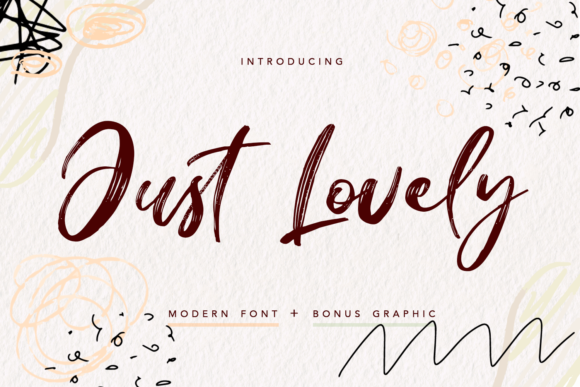
Journey into the world of elegance and sophistication with Just Lovely, a captivating script font that embodies charm and grace. Its carefully crafted brushstrokes dance across the page, leaving a trail of timeless beauty. Designed with passion by enyaaa90, Just Lovely is a masterpiece that elevates your designs, adding a touch of magic to every word.
Unleash your creativity with Just Lovely's versatility. Its fluid lines and effortlessly stylish curves make it a perfect choice for logos, wedding invitations, headings, t-shirts, letterhead, signage, labels, news, posters, badges, and so much more. Picture your brand's logo adorned with Just Lovely, exuding an aura of sophistication that attracts and captivates. Envision your wedding invitations scripted in this enchanting font, setting the tone for a celebration filled with love and elegance.
Step into the spotlight with Just Lovely's ability to transform ordinary text into breathtaking headers. Its eye-catching presence commands attention, ensuring your message stands out in a sea of mediocrity. Create t-shirts that speak volumes, emblazoned with quotes or designs brought to life by Just Lovely's enchanting strokes. Experience the joy of crafting letterheads that exude professionalism, making a lasting impression with every correspondence.
Indulge in the beauty of signage and labels adorned with Just Lovely. Its graceful letters lend an air of distinction, drawing eyes and captivating hearts. Craft news articles that captivate readers, with headings that dance off the page in Just Lovely's captivating style. Unleash your inner artist and create posters that ignite imaginations, using Just Lovely to convey messages that inspire and uplift. Design badges that proudly display your brand's identity, making a bold statement with Just Lovely's timeless appeal.
Just Lovely is more than just a font; it's an invitation to embark on a creative journey where elegance meets versatility. Its ability to transform the mundane into the magnificent makes it an essential tool for designers, bloggers, and anyone seeking to elevate their visual presence. Embrace the allure of Just Lovely and watch as your designs blossom into works of art. Your search for the perfect font ends here.